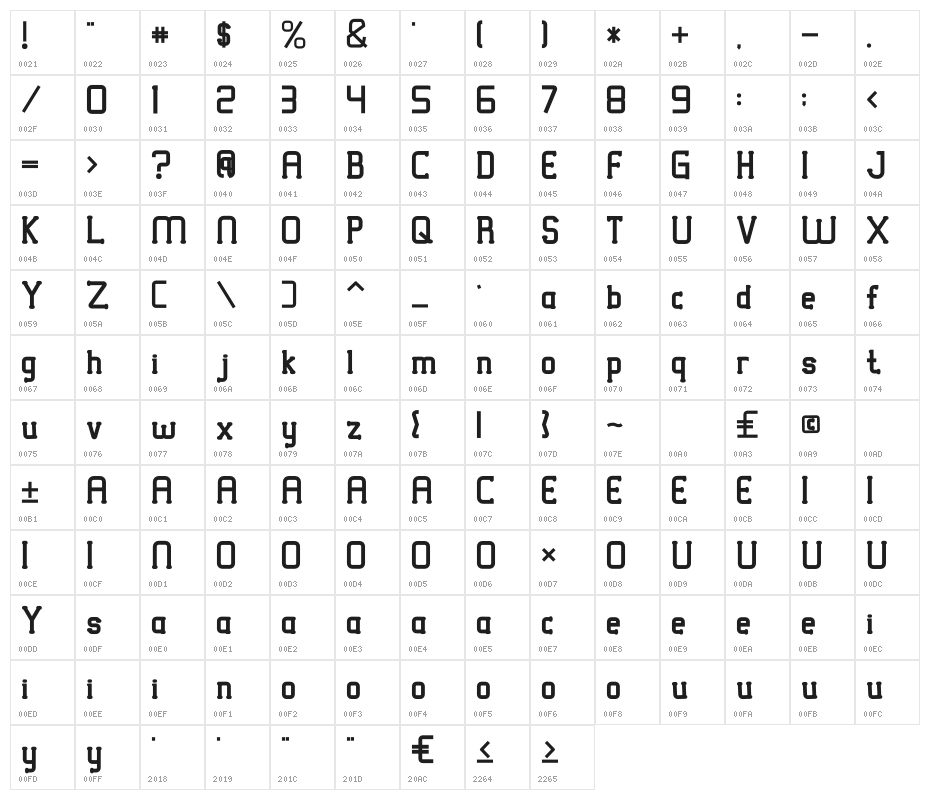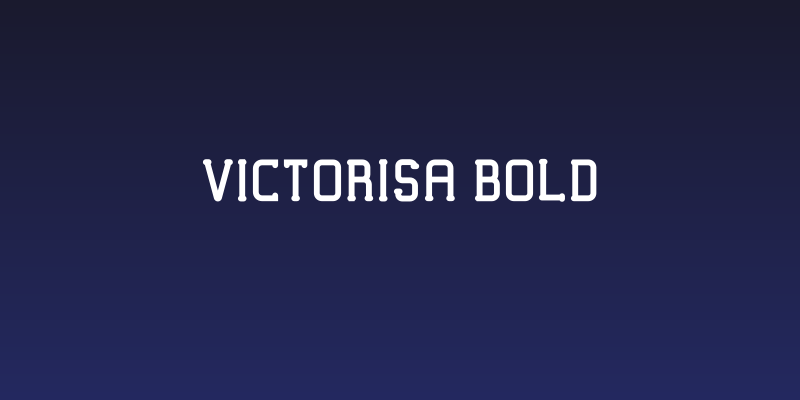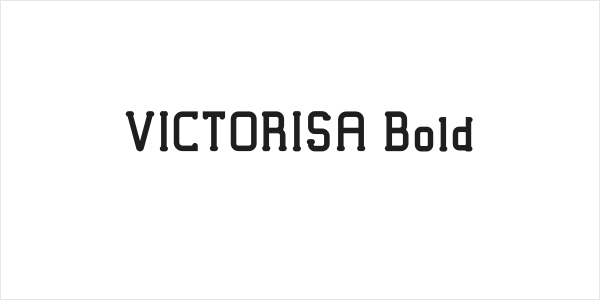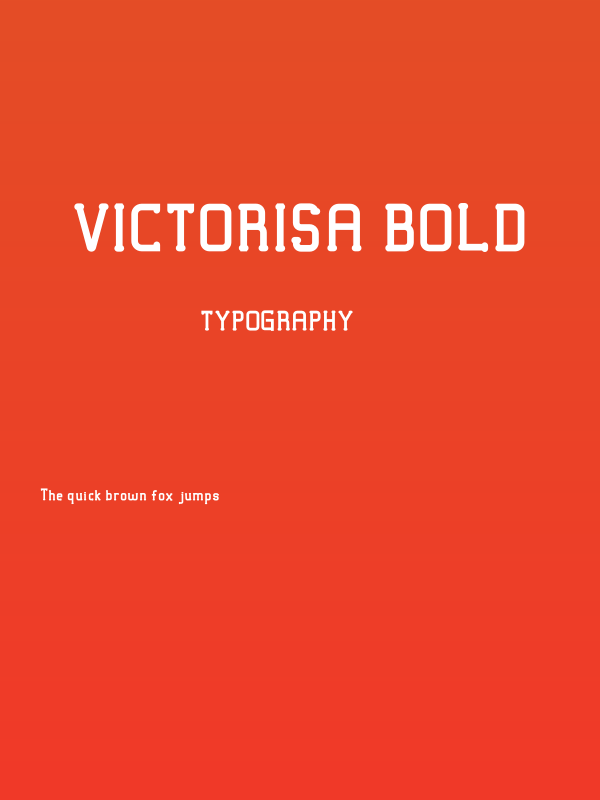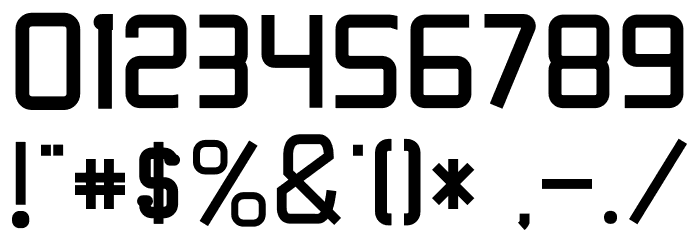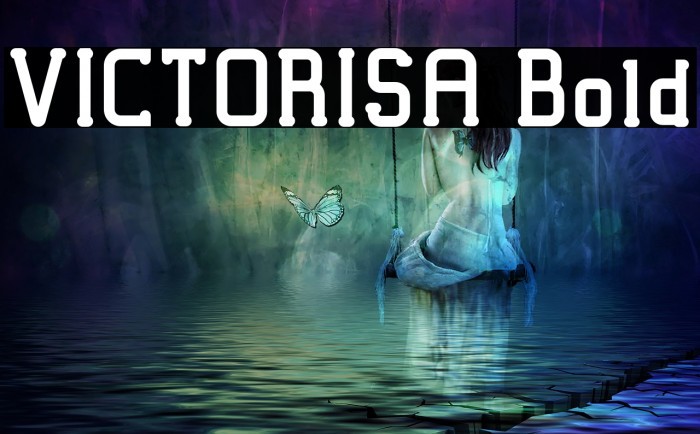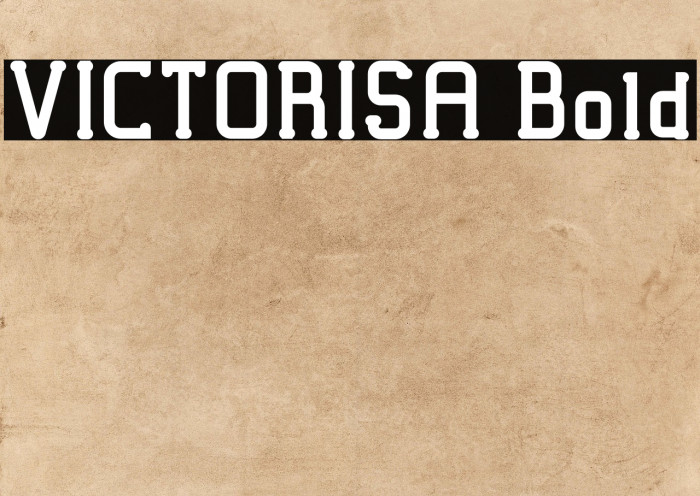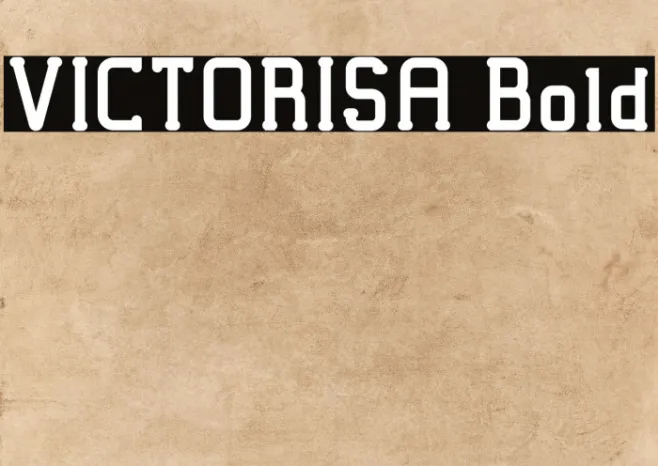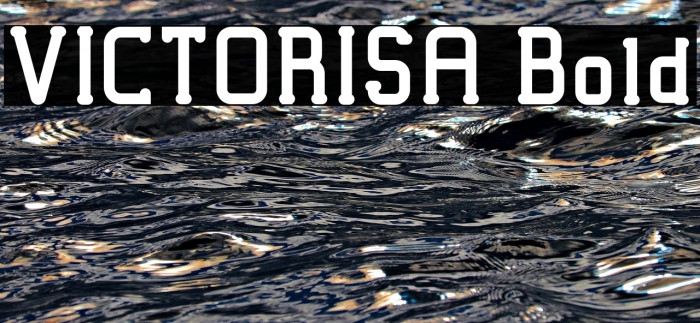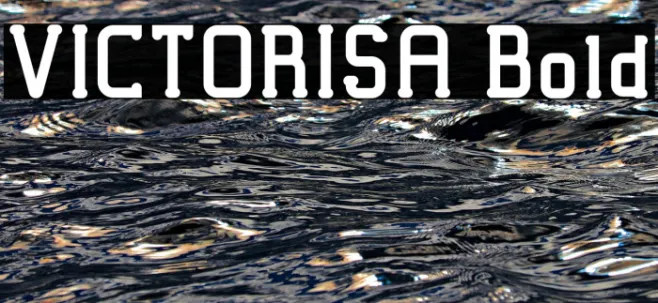
VICTORISA Bold Font
VICTORISA Bold Description
This font features a bold and structured design with a modern twist. The characters are uniform in width, giving it a monospaced appearance, yet they maintain a unique style with rounded edges and a slight industrial feel. The uppercase letters are tall and commanding, while the lowercase letters complement them with a consistent height and width. Numbers are clear and easily distinguishable, making them suitable for various applications. The special characters are well-defined, adding to the font's versatility. This font's boldness and clarity make it ideal for attention-grabbing headlines and impactful designs.
| Proposed Projects | Ideal for headlines, posters, branding, and digital interfaces where a strong, modern presence is needed. |